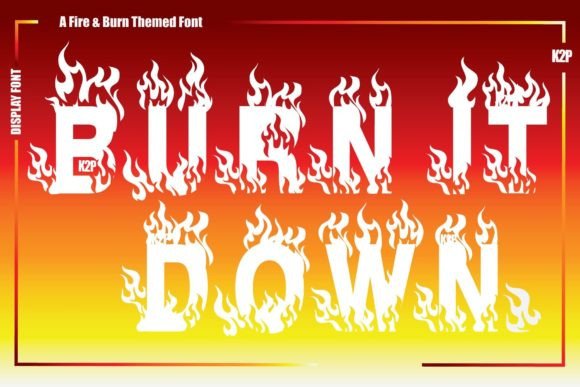
The Ultimate Design Game-Changer: Burn It Down Font
I’ll never forget the time I was working on a project for a client who wanted a bold, eye-catching font to capture the essence of their brand. I scoured the internet, tried countless fonts, but nothing seemed quite right. That was until I stumbled upon the Burn It Down font. It was like a breath of fresh air – the thick, daring letters instantly elevated my design and exceeded my client’s expectations. If you’re a designer, crafter, or creative hobbyist looking for a font that packs a punch, you’re in the right place!
An Honest Review of Burn It Down Font
• ✨ Unique and bold lettering that commands attention
• ✅ Thick and daring design perfect for making a statement
• 🎉 PUA encoded for easy access to glyphs and swashes
• 💻 Highly versatile and suitable for various design projects
While Burn It Down font is an amazing addition to any design library, there are a few minor things to keep in mind:
• 🤔 Some users may find the font a bit too bold for certain projects
• ⚠️ Limited use of subtlety, as the font is designed to make a statement
A Practical Guide to Using Burn It Down Font
The Backstory Behind Burn It Down Font
The Burn It Down font was created with the intention of making a bold statement. Its designer, inspired by the raw energy of city streets and the confidence of modern branding, crafted a font that would instantly elevate any design. With its unique lettering and daring style, Burn It Down font has become a go-to choice for designers looking to make an impact.
Q: Is Burn It Down font suitable for body text?
A: While Burn It Down font is incredibly versatile, it’s primarily designed for headlines and titles. Its bold style may not be ideal for body text, but it can be used in short paragraphs or captions.
Q: Does Burn It Down font come with any additional features?
A: Yes, Burn It Down font is PUA encoded, which means it comes with a range of glyphs and swashes that can be accessed easily.